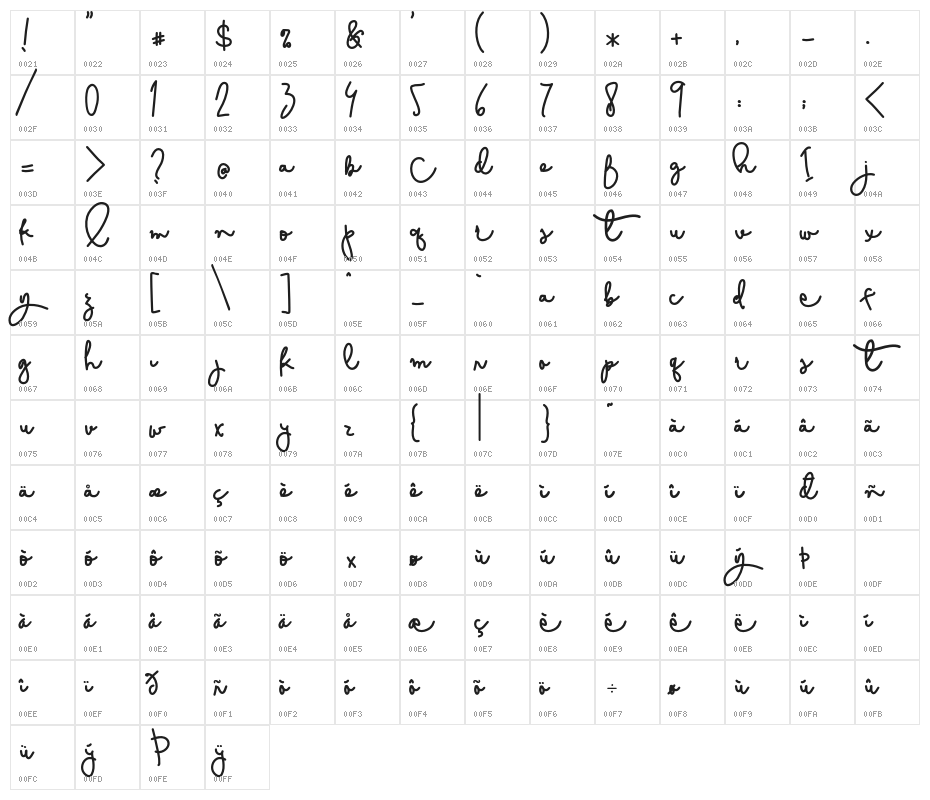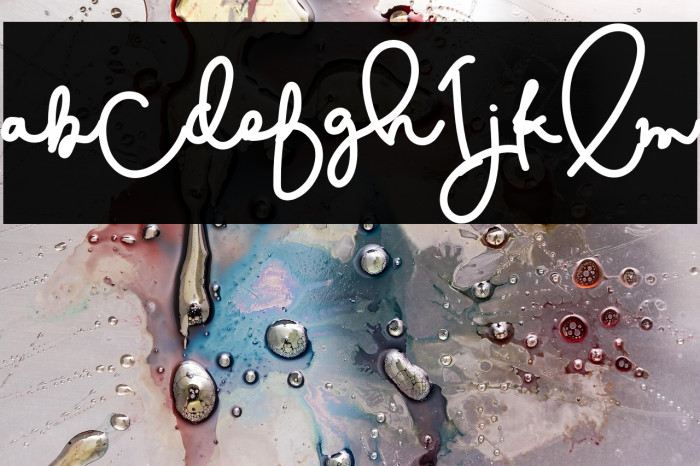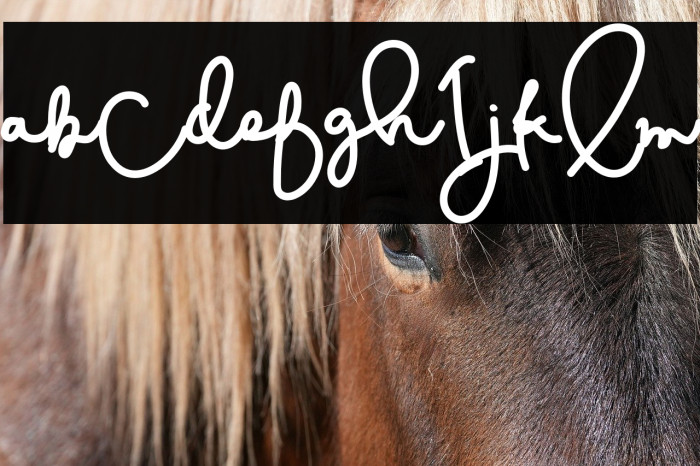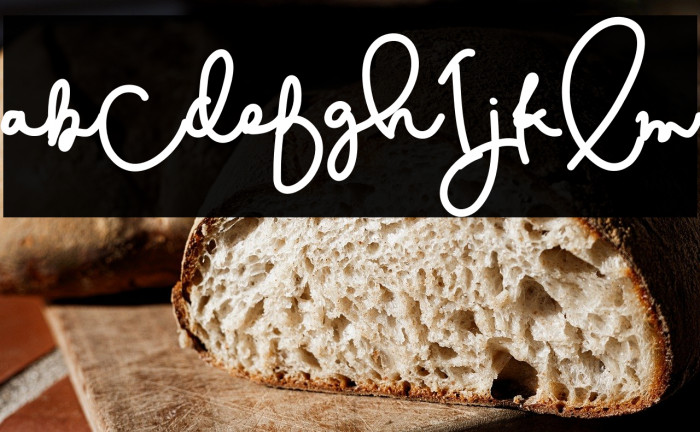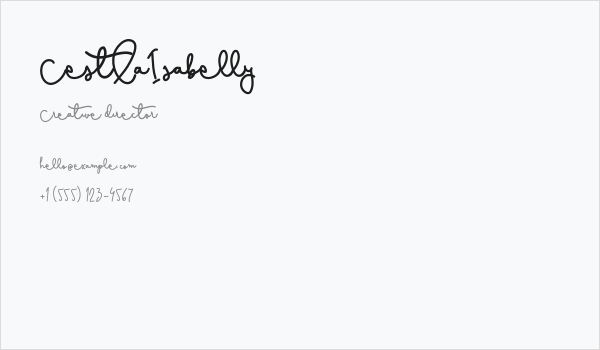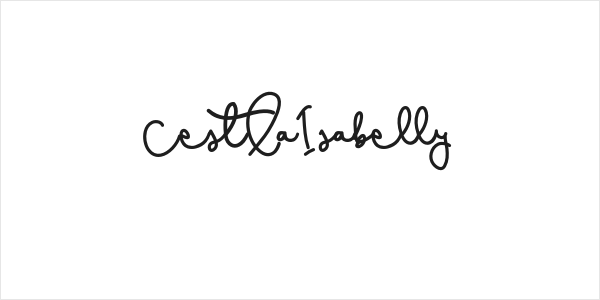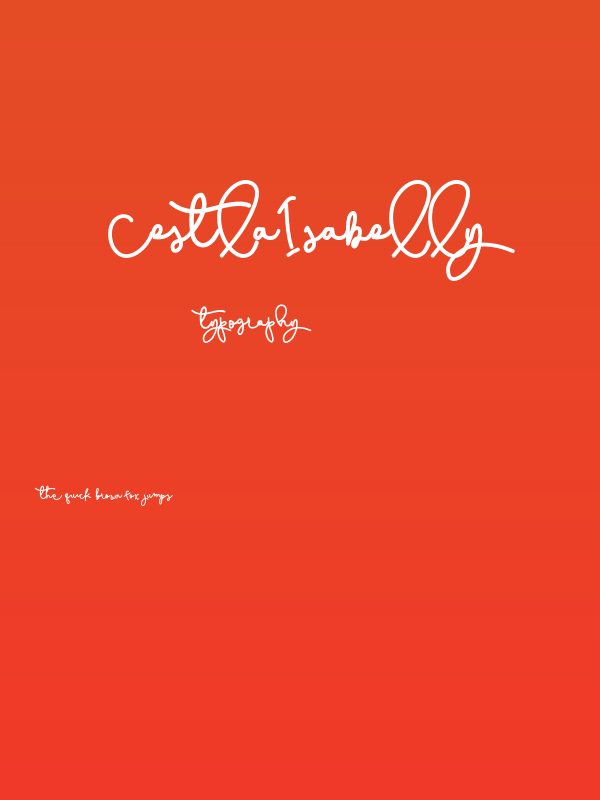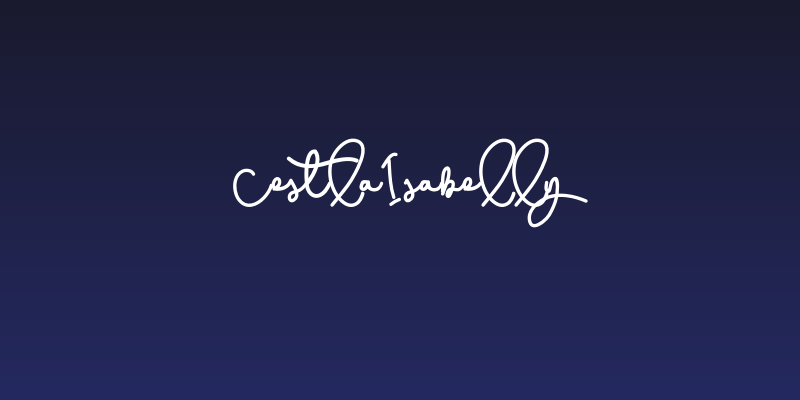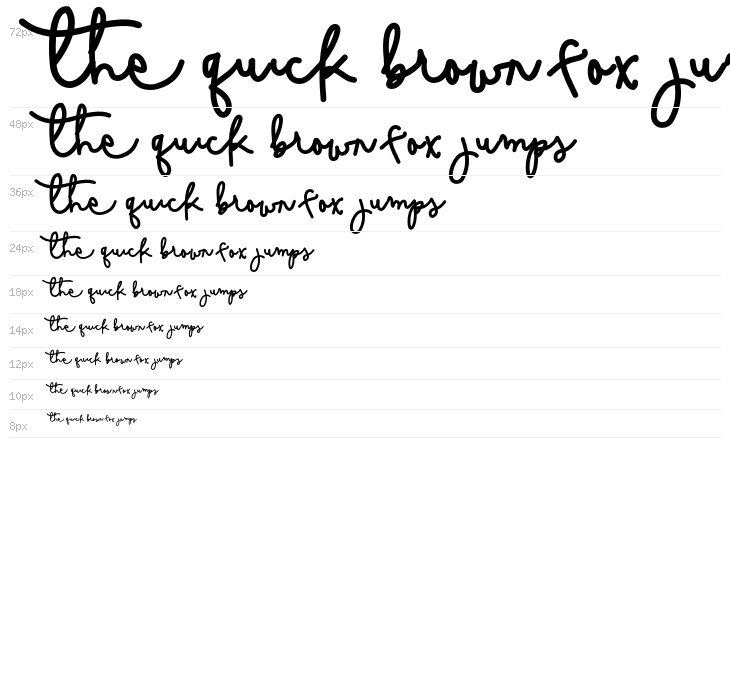
CestLaIsabelly Font
CestLaIsabelly Description
This font exudes a lively and expressive handwritten style, characterized by its fluid and connected strokes. The letters are crafted with a playful yet elegant flair, making it ideal for projects that require a personal touch. The uppercase and lowercase letters maintain a consistent flow, with some letters featuring unique loops and swirls that add to its charm. The numerals and special characters are equally dynamic, ensuring a cohesive look across all text elements. This font's energetic style is perfect for creative projects that aim to capture attention and convey a sense of individuality.